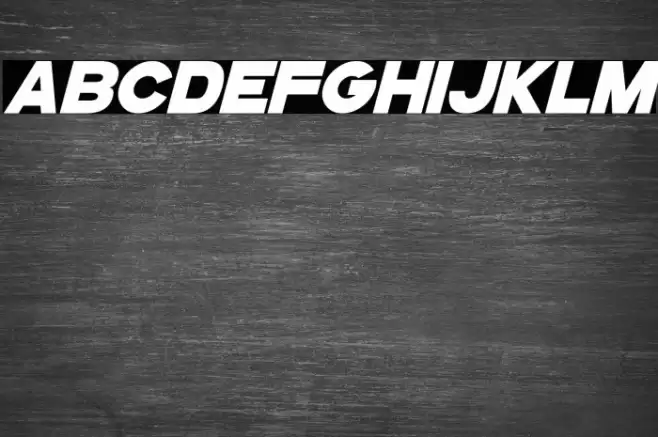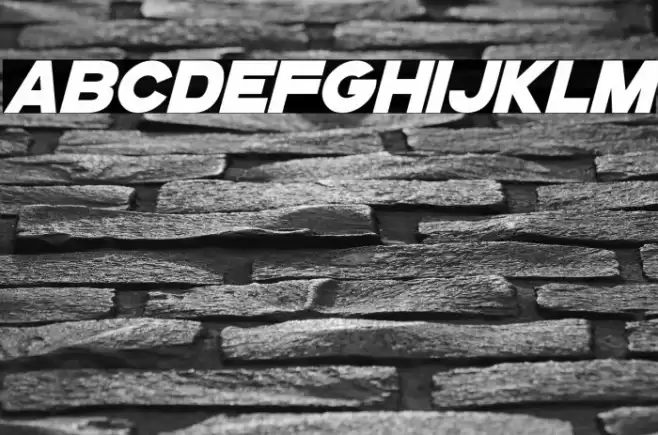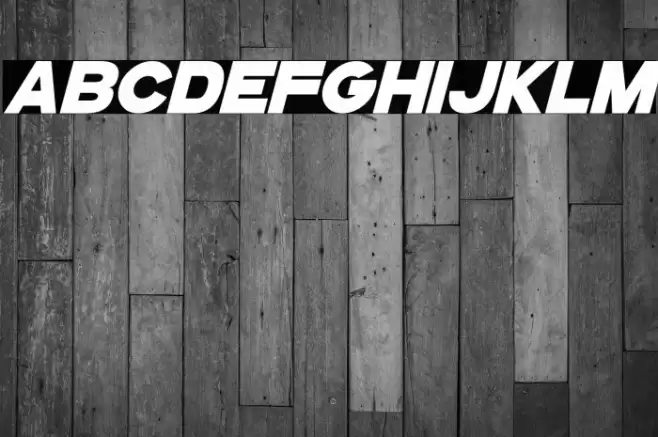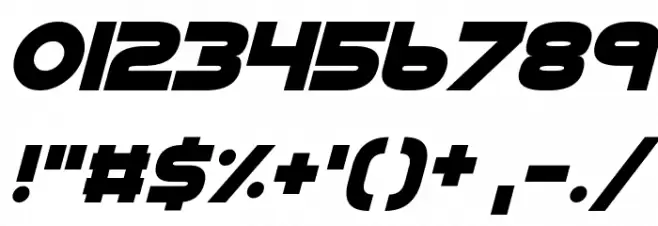
GoGoPosterPunch Italic Font
GoGoPosterPunch Italic Description
This font features a bold and dynamic style with a strong italic slant, giving it a sense of movement and urgency. The characters are thick and robust, with a modern and impactful appearance. The uppercase letters are particularly striking, with sharp angles and a slightly condensed form that enhances their boldness. The numbers and special characters maintain this energetic style, making them suitable for attention-grabbing designs. The overall look is both contemporary and assertive, ideal for projects that require a strong visual presence.
Bold, italic font with a dynamic and modern style from Uncategorized fonts.
- Proposed Projects: Ideal for posters, headlines, branding, and advertising materials that require a bold and energetic look.